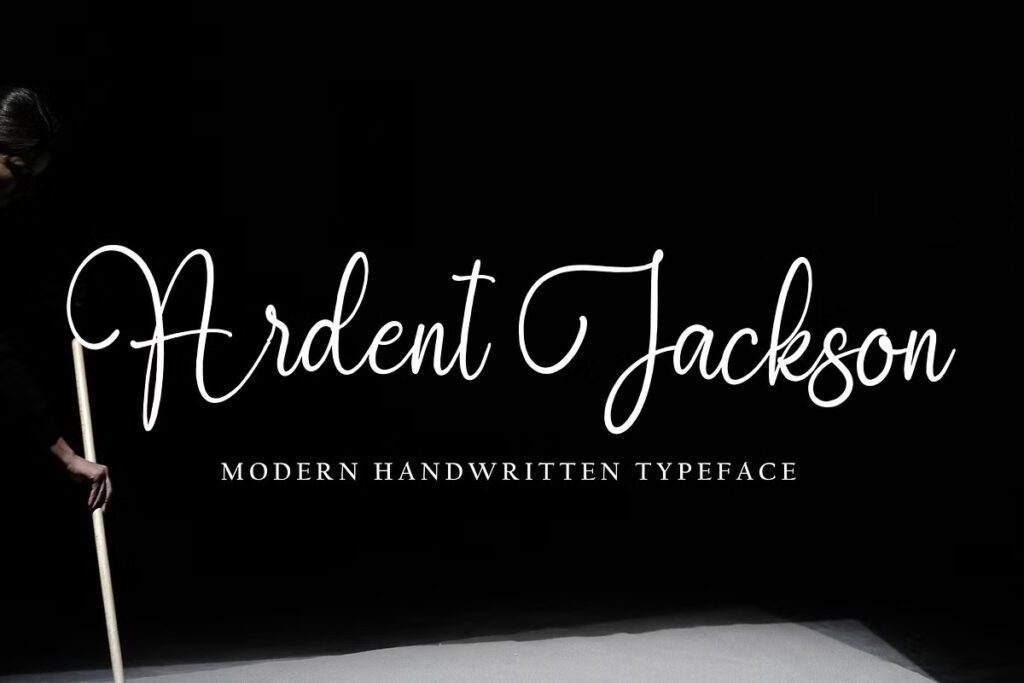
Bold name, handwritten category
Earlier listing text for Ardent Jackson pitched it as a “bold and stylish font” for quotes, branding and invitations. Creative Market itself files it under Fonts > Handwritten, and HaKi Studio’s current description lists a similar range of uses: quotes, logos, blog headers, posters, branding, letters, invitations and stationery.
So the official sources describe a handwritten-style font with a strong presence, aimed at short display text. They say nothing about weights, alternates, ligatures or supported languages. Judge the letterforms yourself in the preview box, and test any accented names you need before paying.
Using it for invitations, quotes and small brands
The uses HaKi Studio names are all short-text jobs, which is where a handwritten display font belongs:
- Wedding and party invitations: the couple’s names or the event title, with details in a plain serif.
- Quote posts: a short quote set large, with the source in a small sans.
- Small-business branding: a bakery, studio or boutique wordmark.
- Posters and blog headers: a headline of a few words.
Good free partners are EB Garamond for invitation details and Poppins for modern captions. Use one display font per design; two expressive fonts side by side compete.
Is Ardent Jackson a script or a display font?
Creative Market lists it as a handwritten font. Earlier listing text called it bold and stylish, so expect a strong handwritten look for headings.